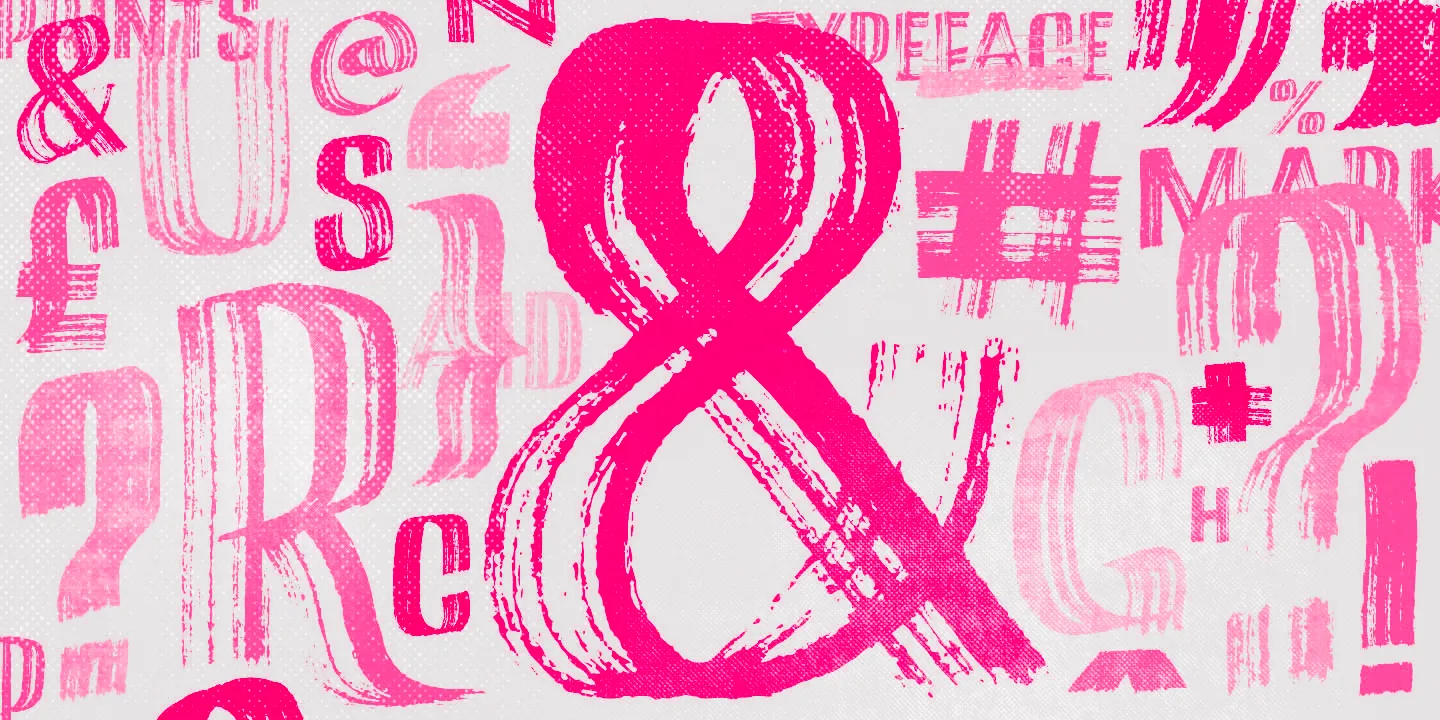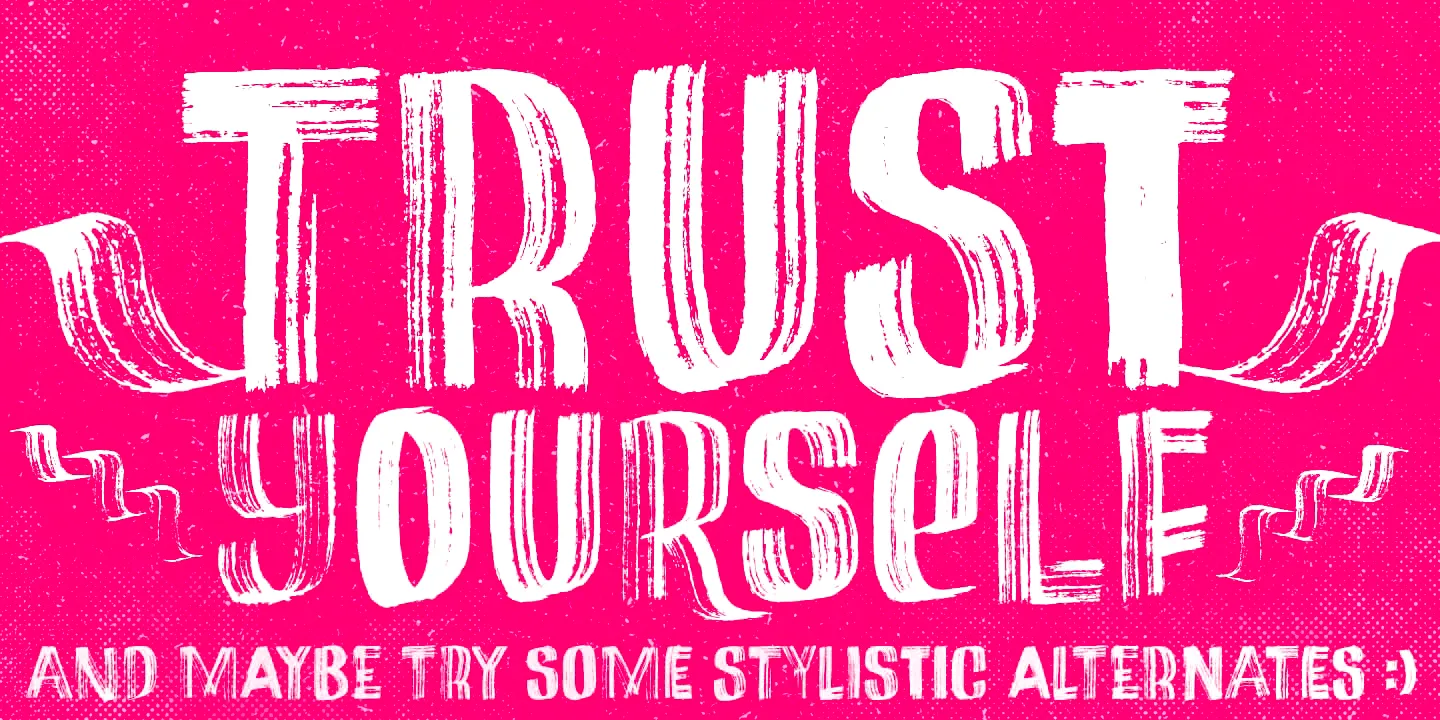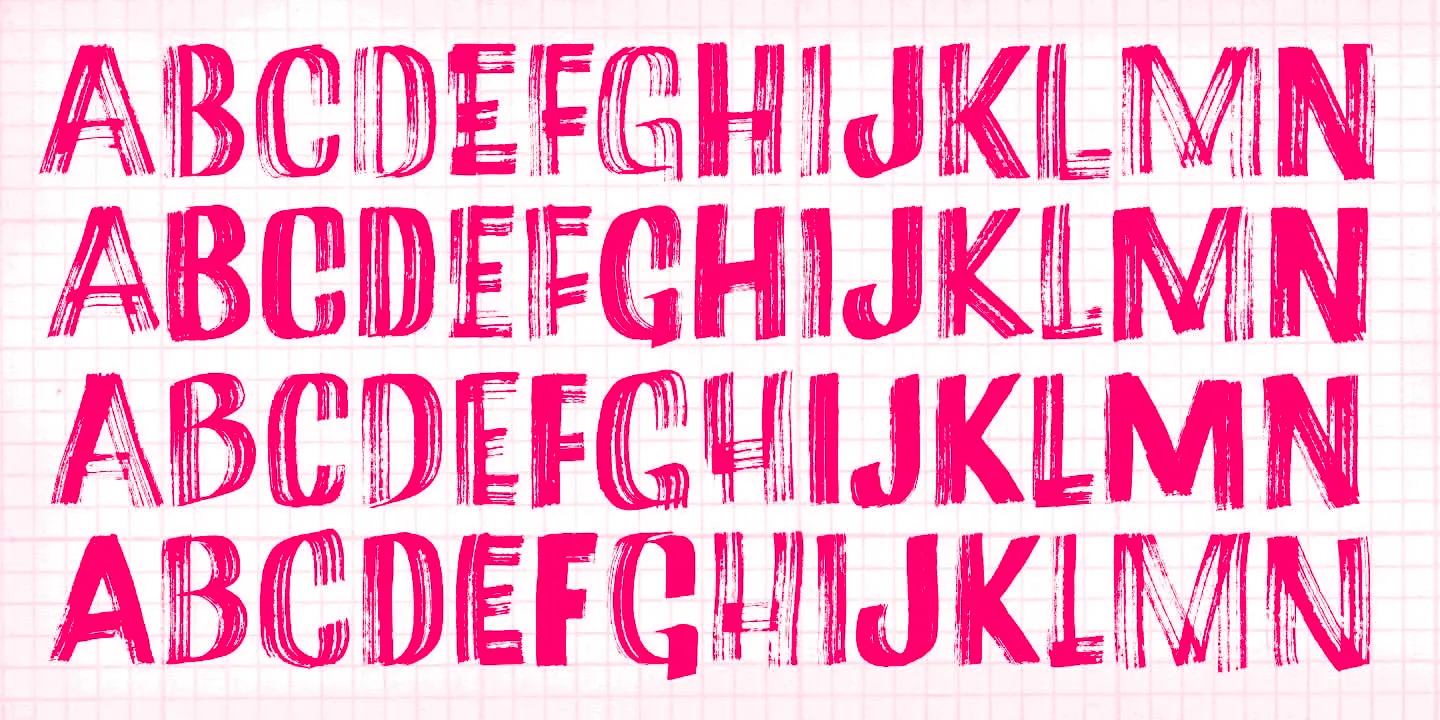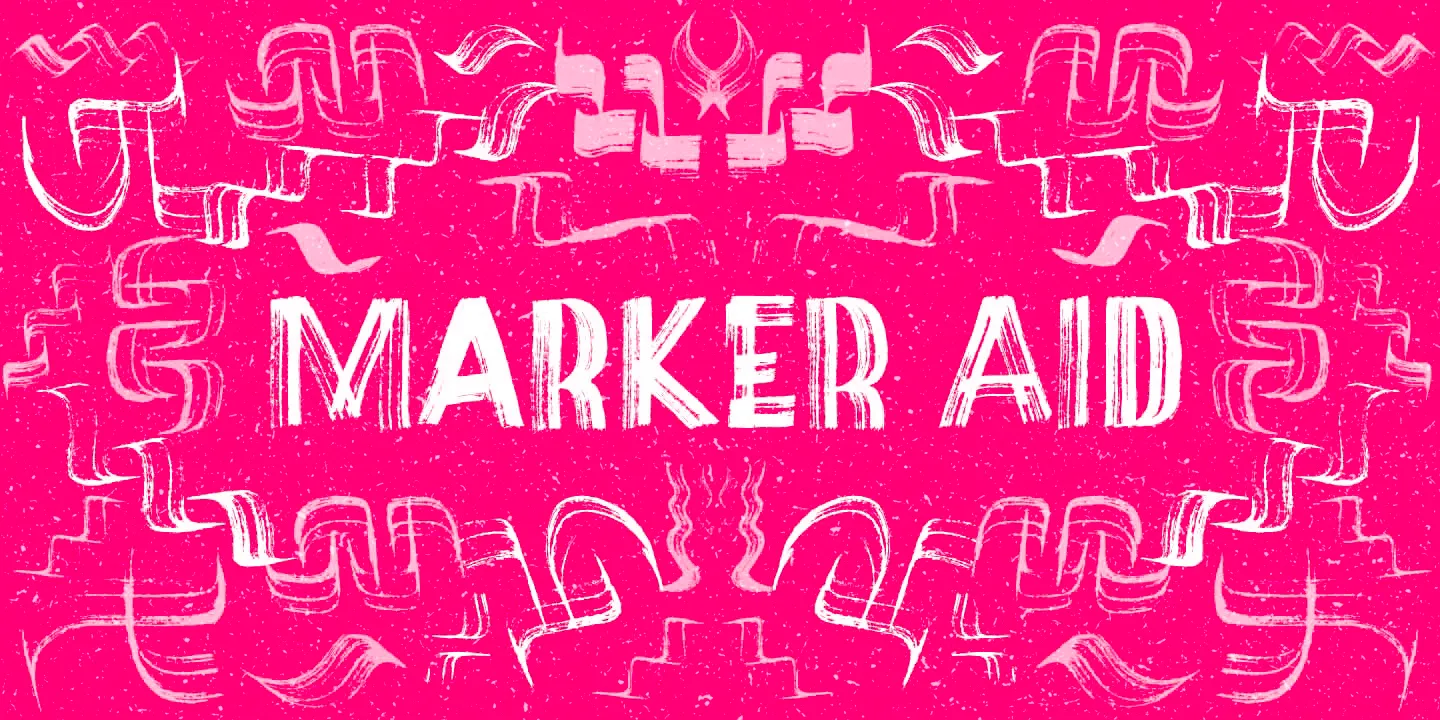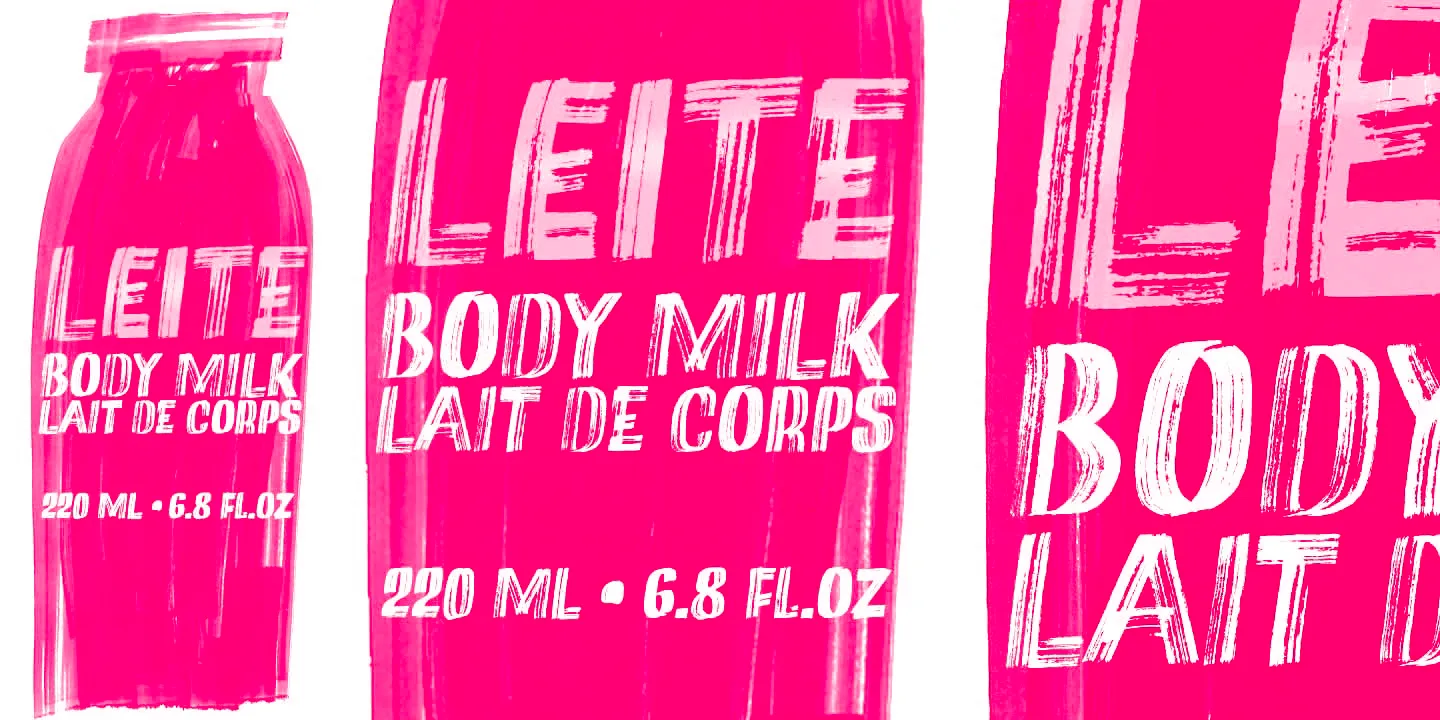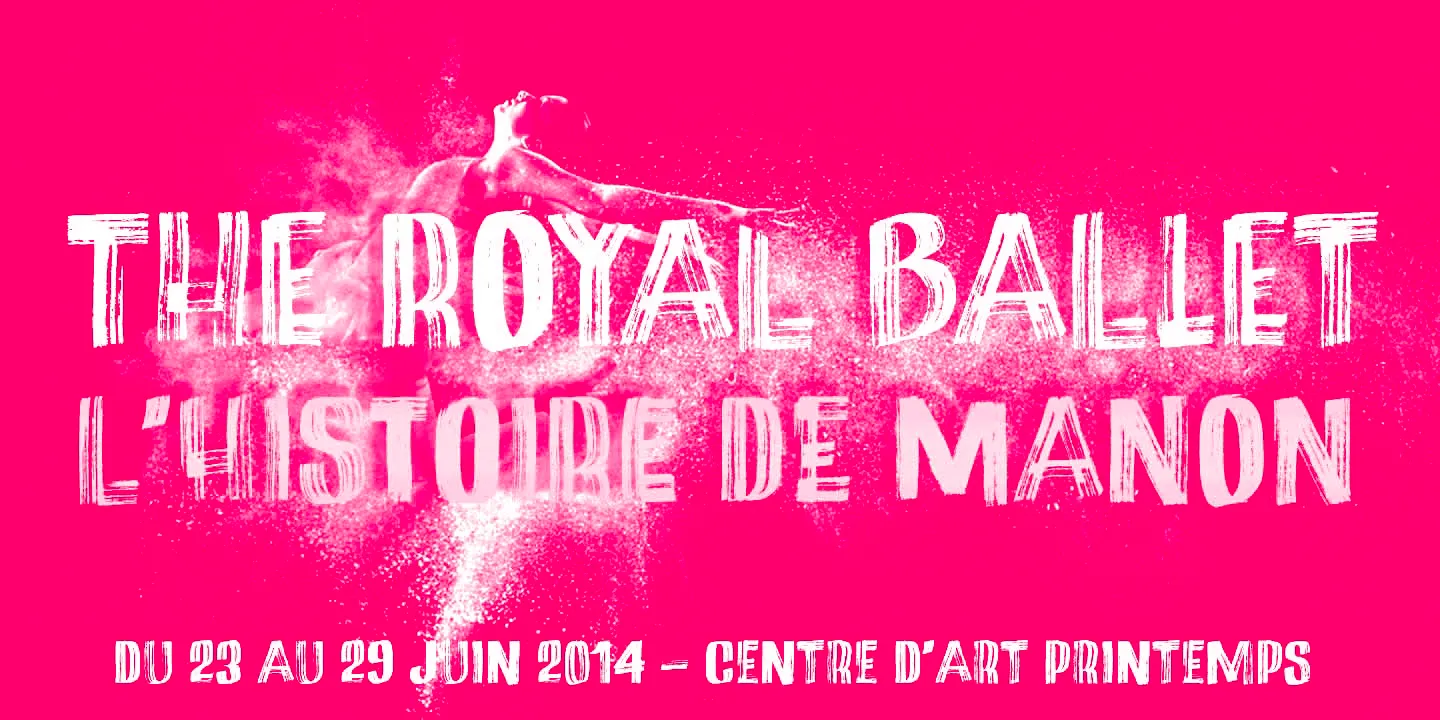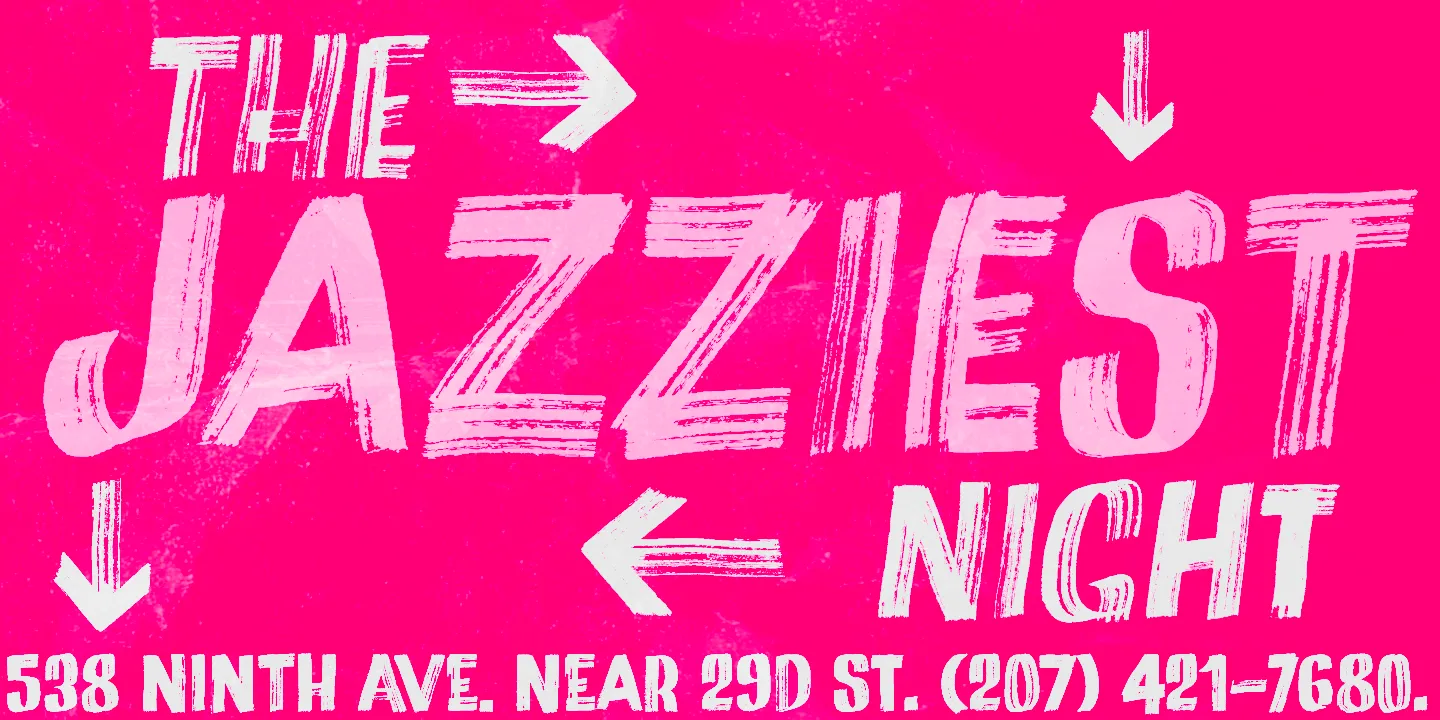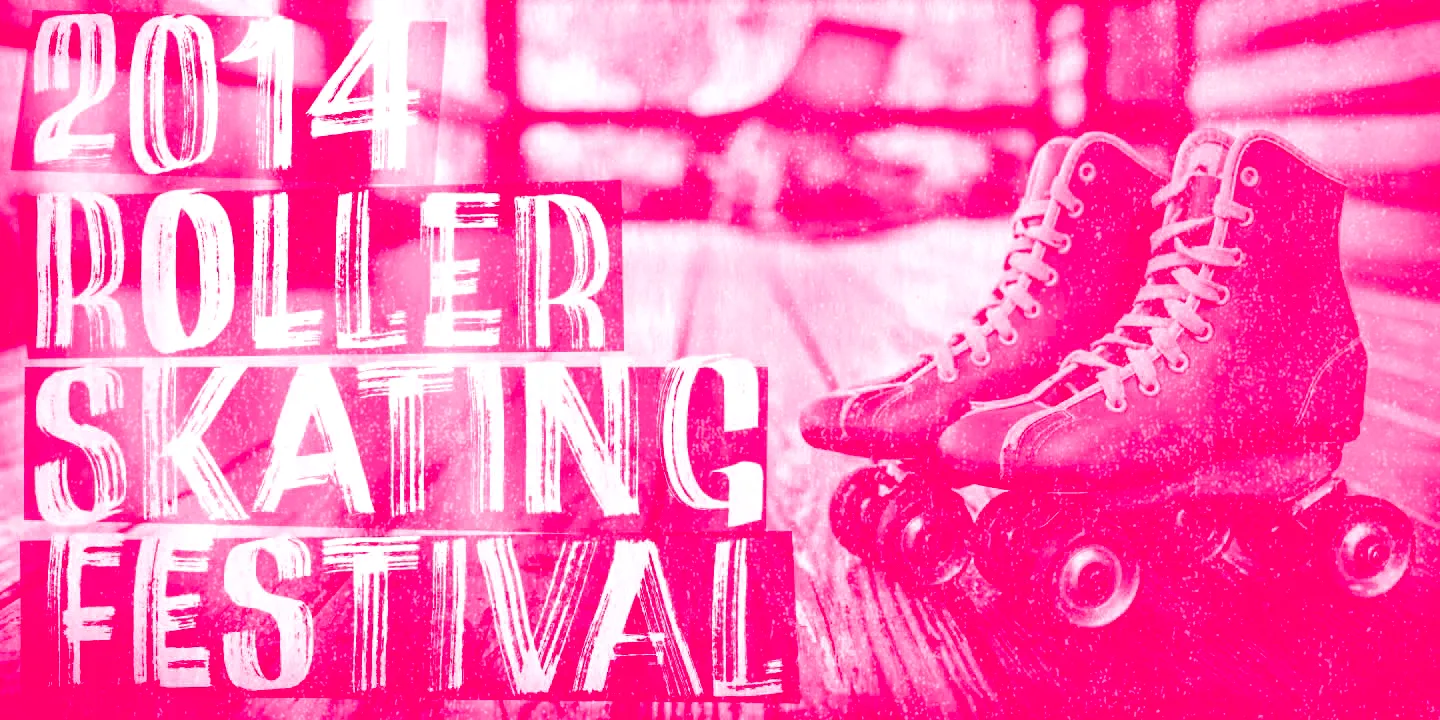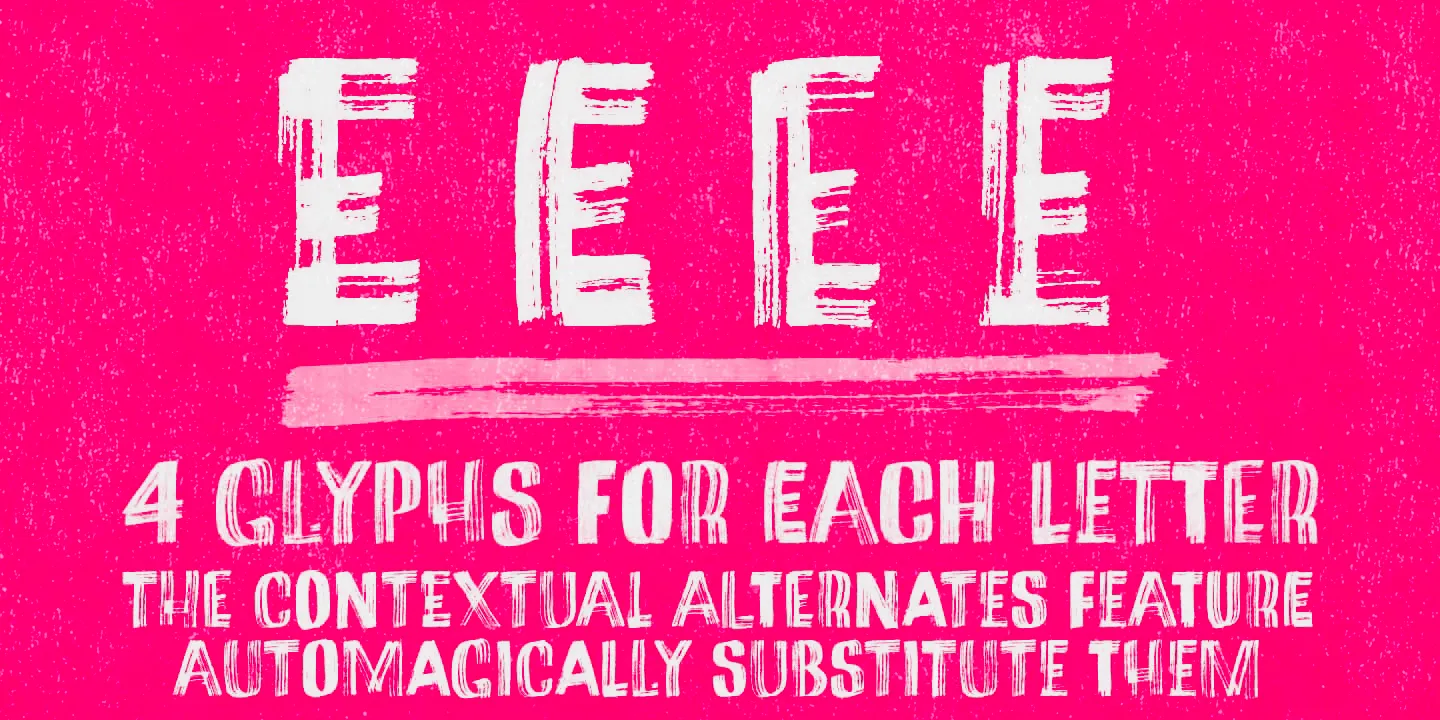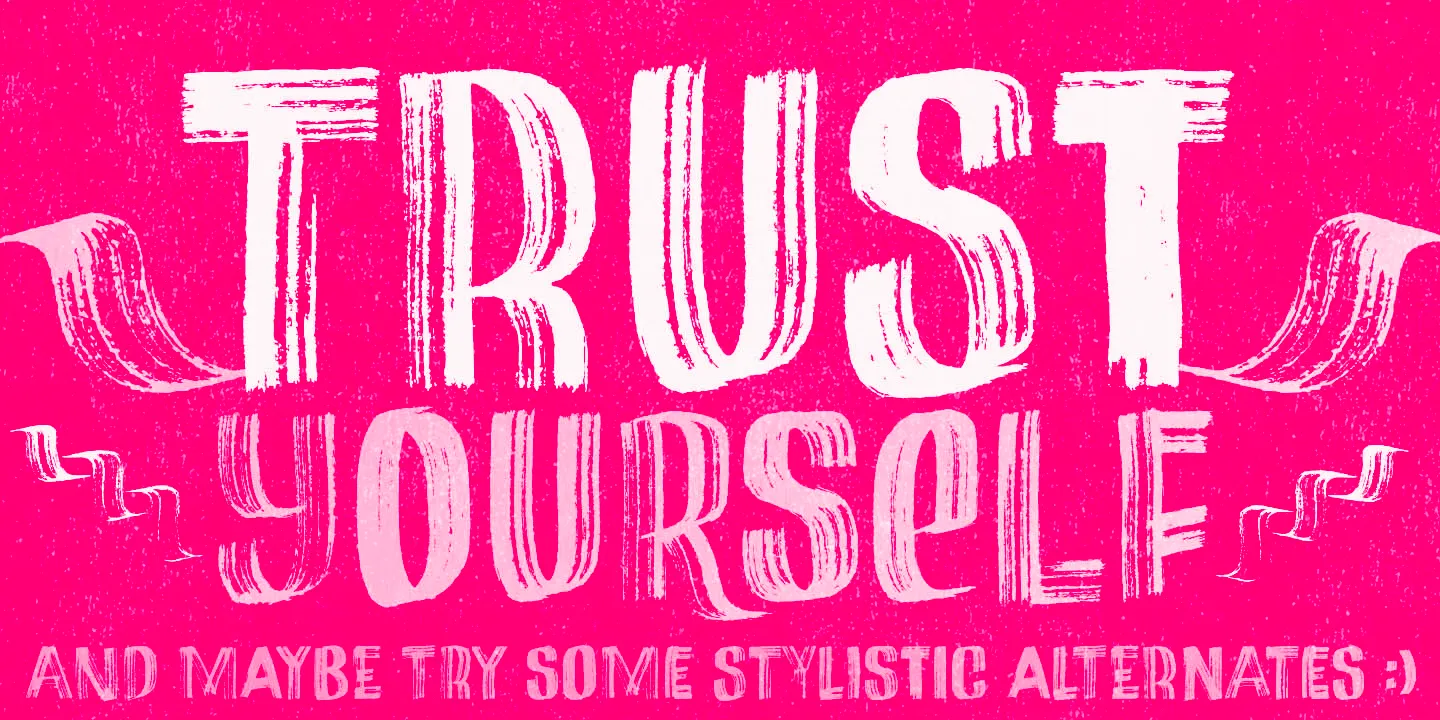
Marker Aid Fonts
Marker Aid
Marker Aid is an expressive typeface drawn with a dry chisel felt-tip marker, resulting in striking, detail-rich fonts. Packed with four alternates for each letter, two for each number, and some handy ornaments for creating a convincing, hand-written look. It could be the perfect choice for adding a scrawled urgency to a book cover, poster, or advertisement. Make your mark!